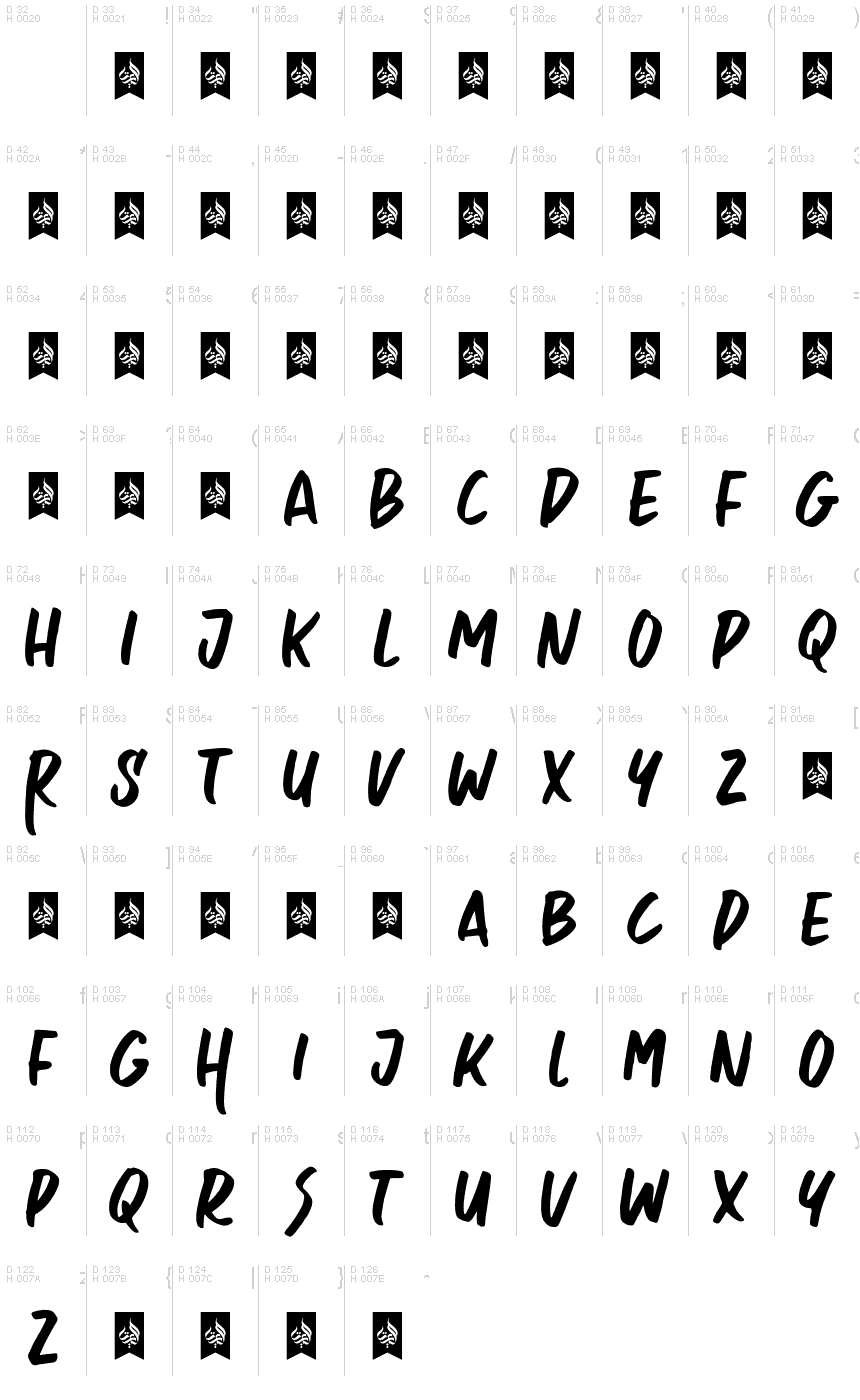
Rosheila
Rosheila - A Font by Aluyeah Studio
Hi Summer Sunshine! Say hello to my Rosheila, a summer scirpt brush font. It's a carefree, summer vibe, casual vibe, and free-spirited brush dispaly font perfect for creating beautiful design! Coming to you with 32 alternate letters to create a perfectly beautiful, casual, hand lettered look.